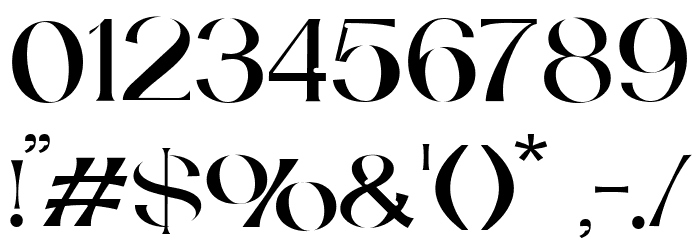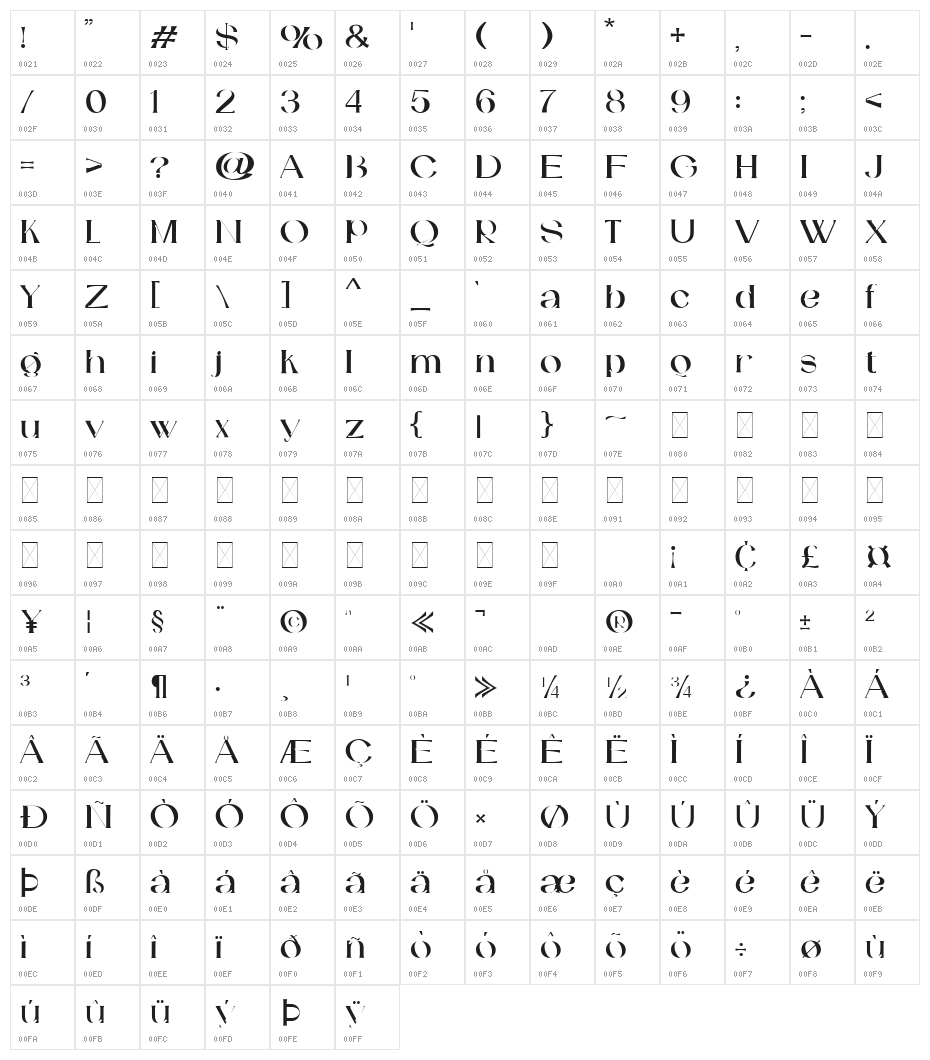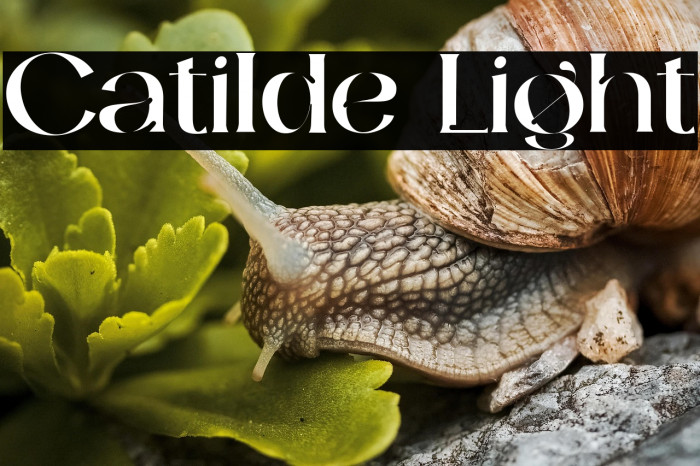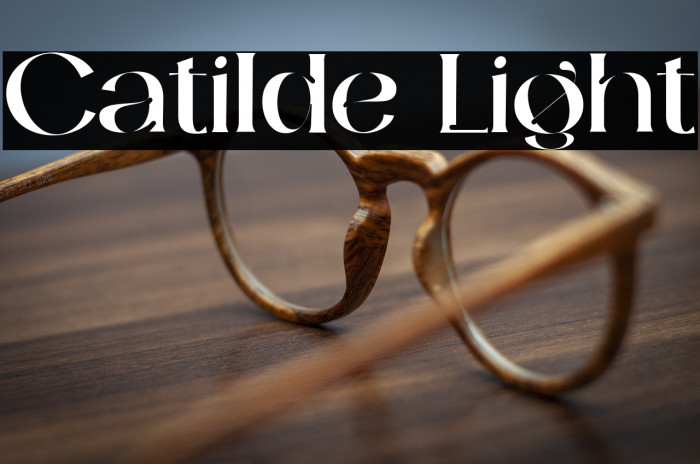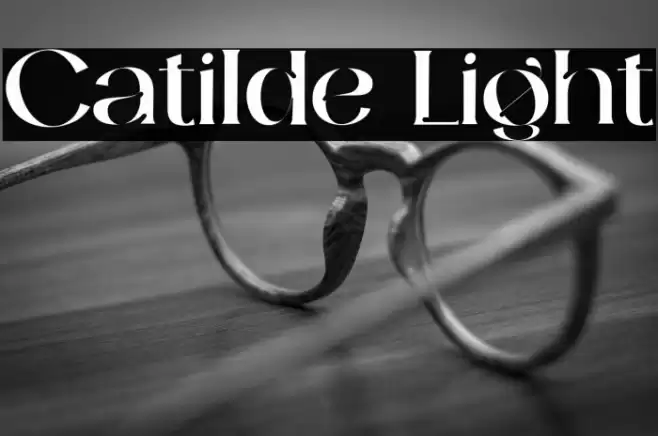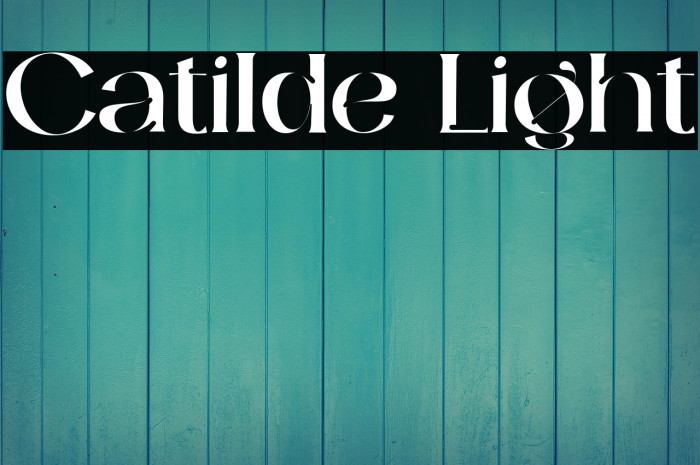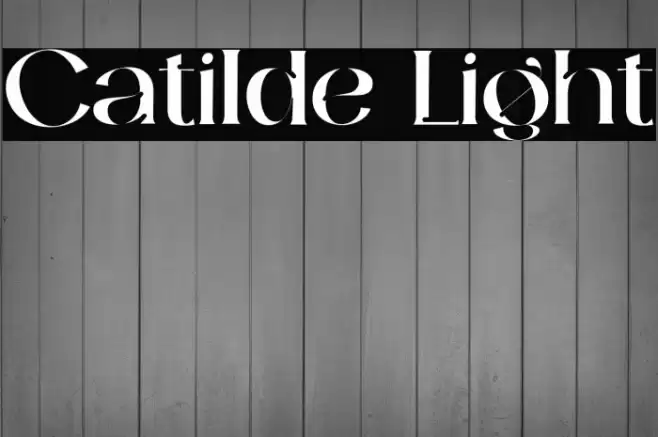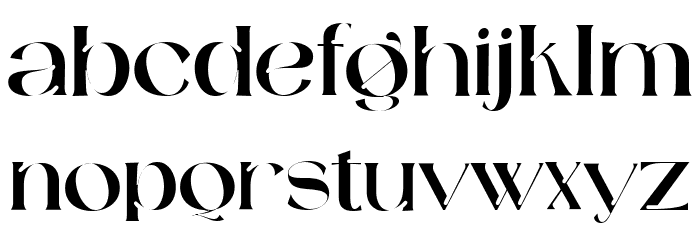
Catilde Light Font
Catilde Light Description
This font exhibits a unique blend of modern and classic elements, characterized by its high contrast between thick and thin strokes. The uppercase letters are elegantly elongated with sharp serifs, while the lowercase letters maintain a more rounded and softer appearance. The numerals and special characters are designed with a similar high contrast, adding to the font's distinctive style. The overall aesthetic is sophisticated and stylish, making it suitable for a variety of design applications. The spacing between characters is normal, allowing for clear readability while maintaining its decorative appeal.
| Proposed Projects | Ideal for luxury branding, editorial design, fashion magazines, and high-end product packaging. |